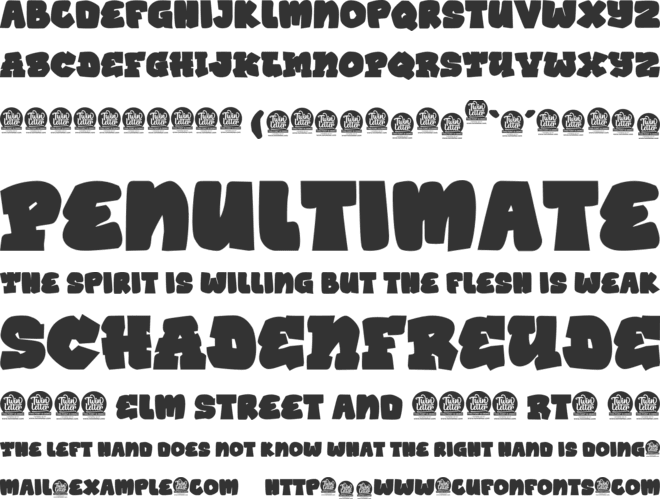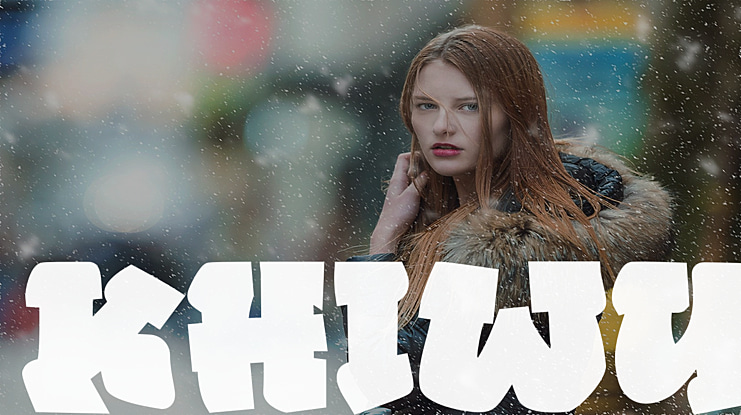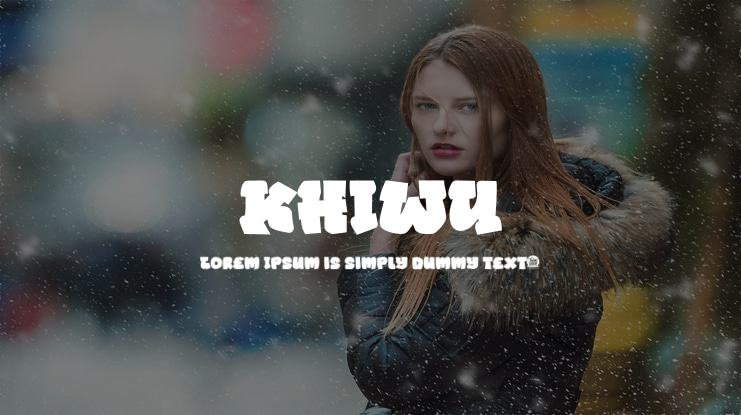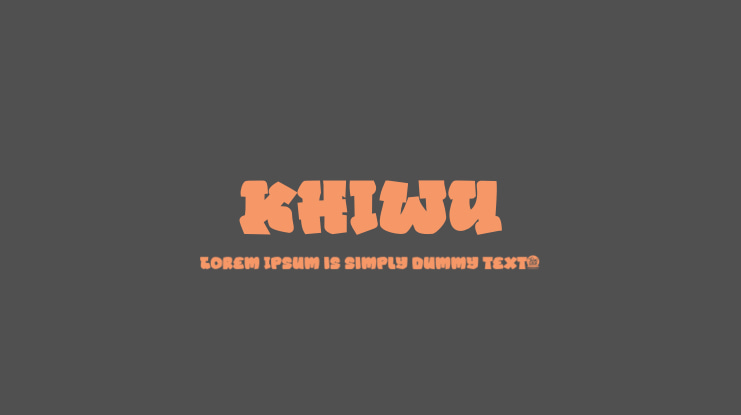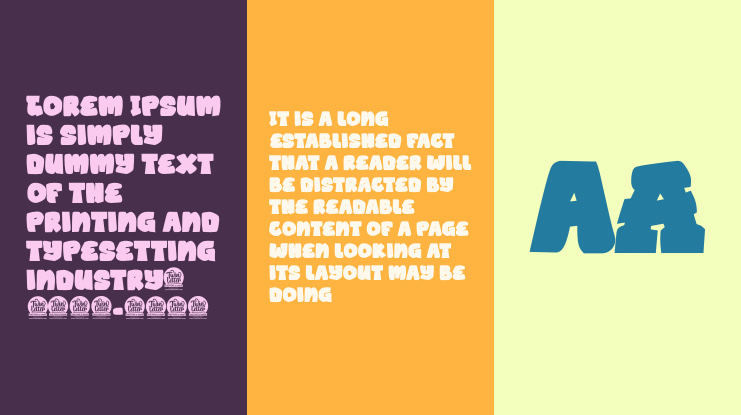
KHIWU Font Family
Khiwu Display FontThis is a new font that we created with a graffiti idea in mind. This font’s abstract yet clean blend makes it ideal for special event productions. This typeface will make it easy for you to build diverse projects while still looking attractive and elegant because it has the correct title display, subtitles, and clear text.This graffiti font is great for product logos, poster titles, headlines, packaging, film titles, logotypes, gorgeous writing, and trendy graffiti designs, among other things.Of course, if you utilize this font in your numerous creative projects, they will be perfect and outstanding. Use this typeface right away for your one-of-a-kind and remarkable projects.Terms Of UseBy downloading or using our font, you are read and accepted to the Our Term and Use Agreement :This font is copyrighted and protected by the law. Usage of this font on any work without a proper license is deemed illegal. You might get fined at least USD 3000 for this act. Please do understand that we have our own system for tracking the usage of our works on the internet.1. This font is Demo ONLY, FOR PERSONAL USE NO COMMERCIAL USE ALLOWED2. Click this link to purchase on our website :https://twinletter.com/product/khiwu/3. For Corporate or Commercial use you have to purchase Corporate and commercial licenses, please contact us at :- Any donations are acceptable and very appreciated. PayPal account for donation:https://paypal.me/abahroziDon't forget to follow our social media for updates:Instagram: twinletterFacebook: TwinletterTwitter: @twinletter